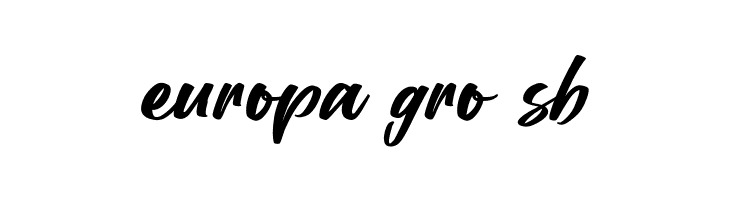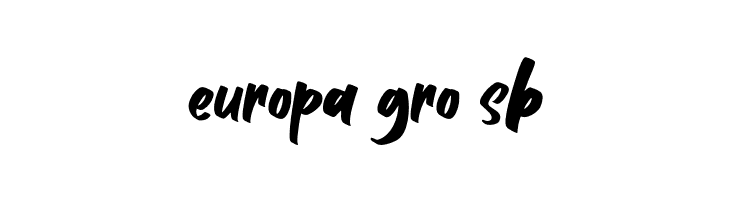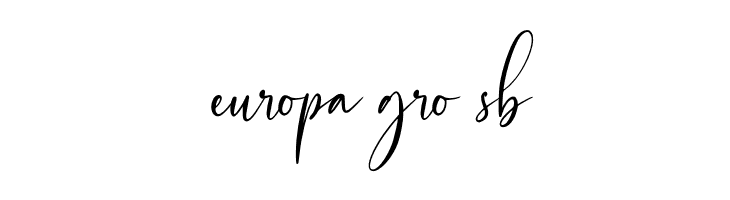
An elegant script font with flowing, ornate characters and graceful flourishes.
A delicate and flowing script font with elegant curves and a polished look.
A bold, expressive brush script font with dynamic strokes.
A bold, brush-style font with dynamic, high-contrast strokes.
A bold, flowing script font with a dynamic, handwritten style.
A playful, handwritten font with flowing, cursive-like strokes.
An elegant, cursive handwritten font with fluid, interconnected strokes.
An elegant, high-contrast script font with a flowing, cursive style.
A graceful script font with elegant swirls and loops, perfect for sophisticated designs.